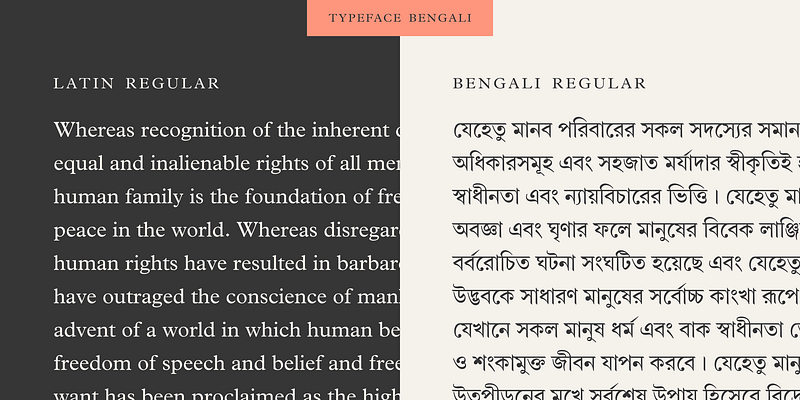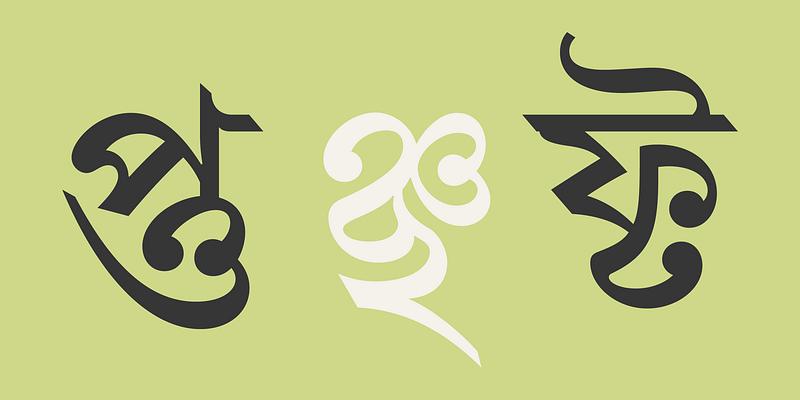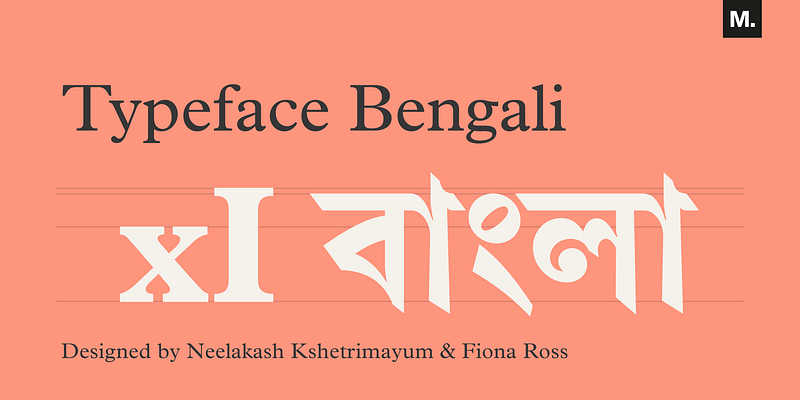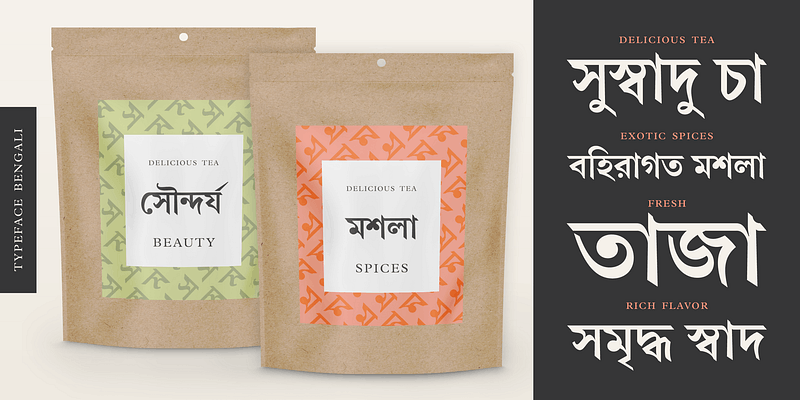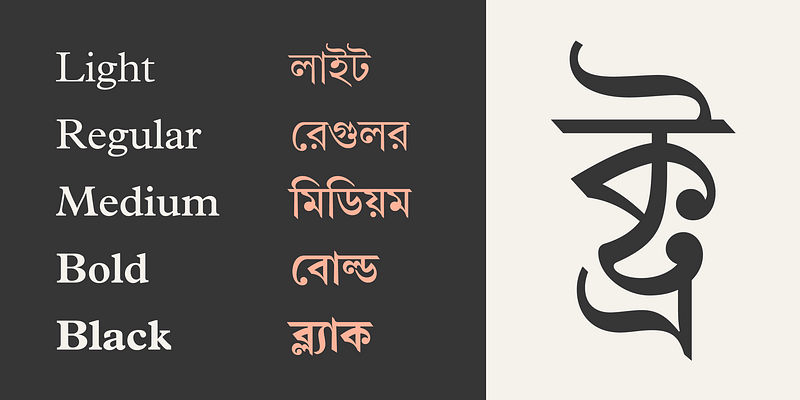
Linotype Bengali, a revival
This project by Neelakash Kshetriymayum and Fiona Ross commissioned by Monotype is at heart a revival of the now ubiquitous original Linotype Bengali typeface designed by Tim Holloway and Fiona Ross (1978-1982) based on Ross’s research for her doctoral studies in Indian Palaeography.
The new Linotype Bengali is informed by more recent research by Ross and Kshetrimayum resulting in additional glyphs that serve contemporary needs in a variety of genres – the original had been specifically designed for newspaper composition and in now outdated digital formats.
The new design makes use of OpenType features with the employment of contextual vowel signs for Bengali – a feature that Ross and Holloway had first introduced in Indian scripts for the Adobe Devanagari typeface – and has sophisticated contextual mark positioning. Furthermore, whereas the original design had existed in only two typestyles, extensive work has been undertaken to produce this new design in 5 weights: Light, Regular, Medium, Bold and Black. It has been an important aspect of this project to remain true to the original design concepts, and so to achieve optimal readability for sustained reading at small type-sizes, but the additional weights enable differentiation in document design, and afford users scope to produce textural variety in their outputs. This revival design is intended to widen the hitherto very limited palette of typographic choices in the field of textual communication in Bengali, Assamese and other languages that make use of the Bengali script.